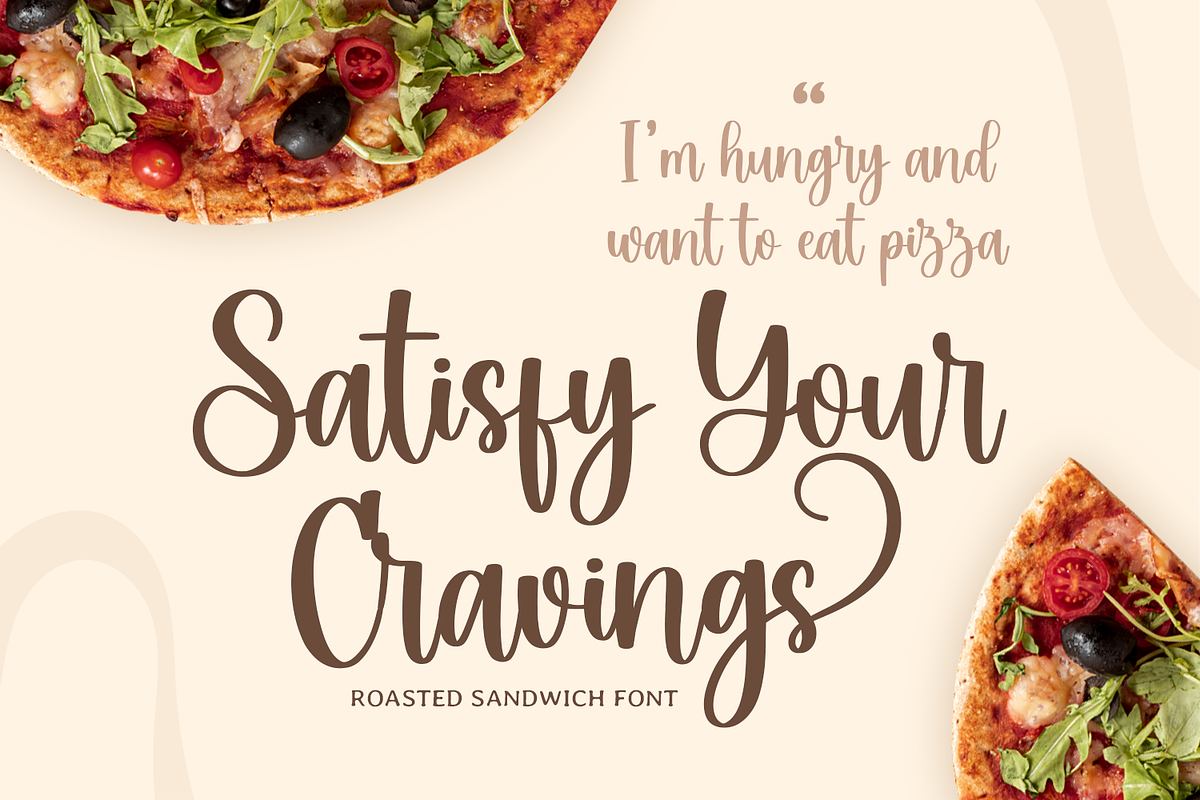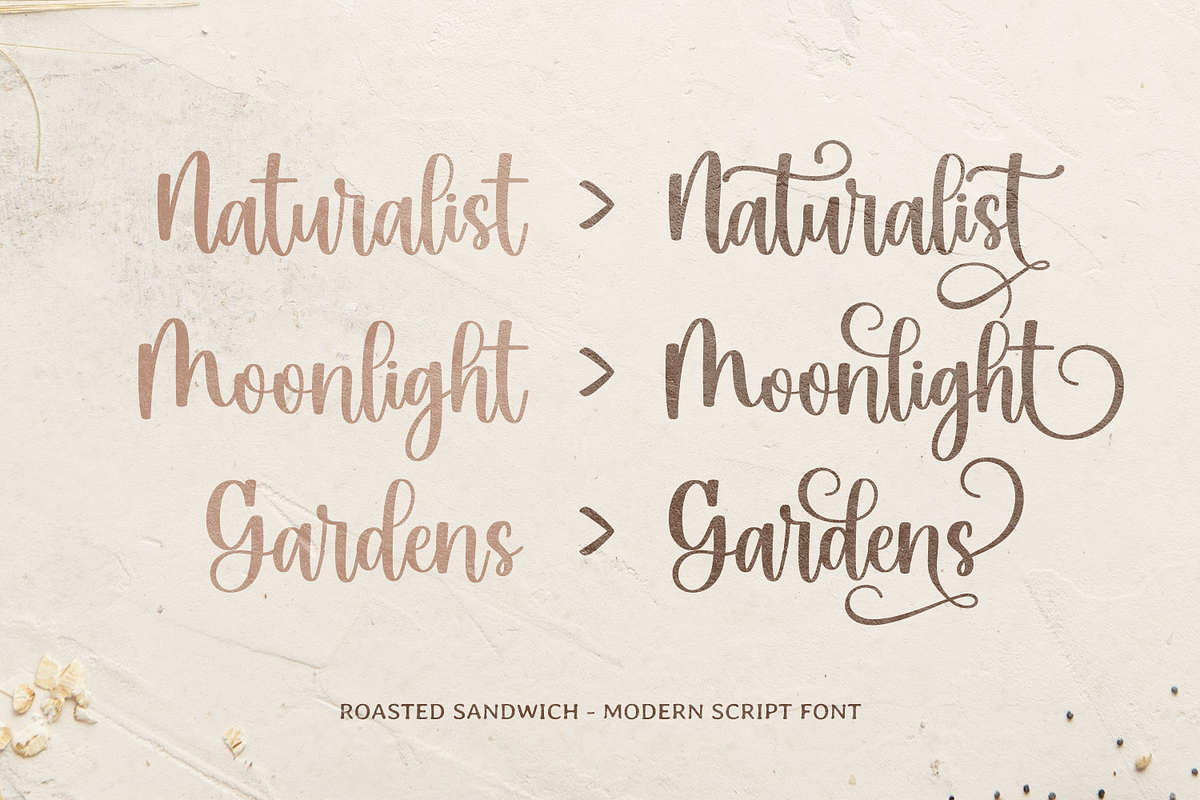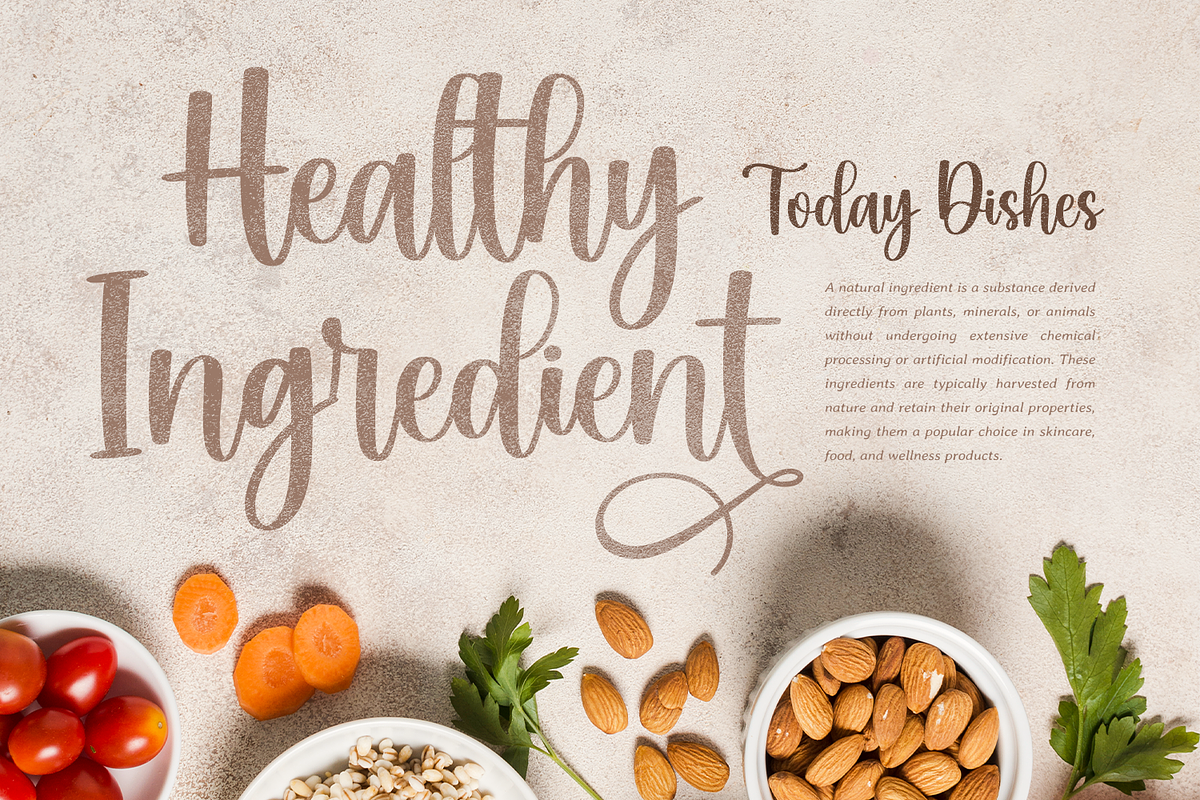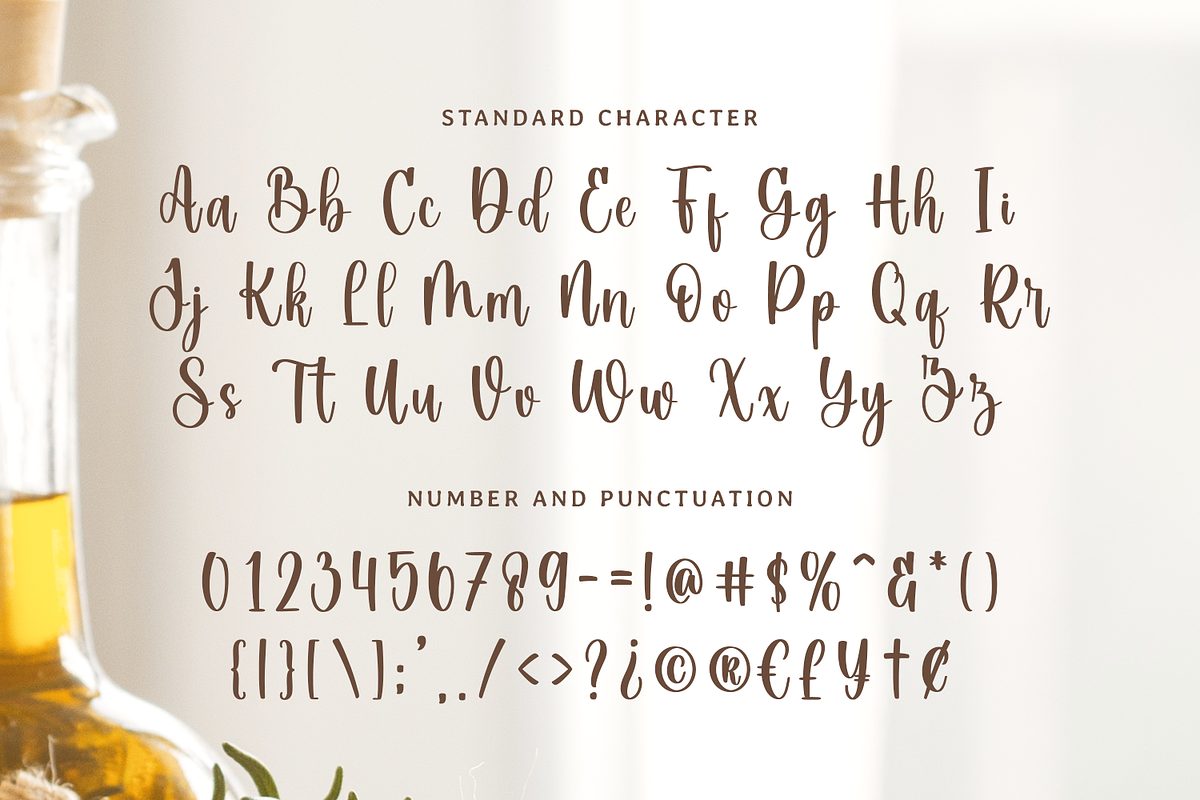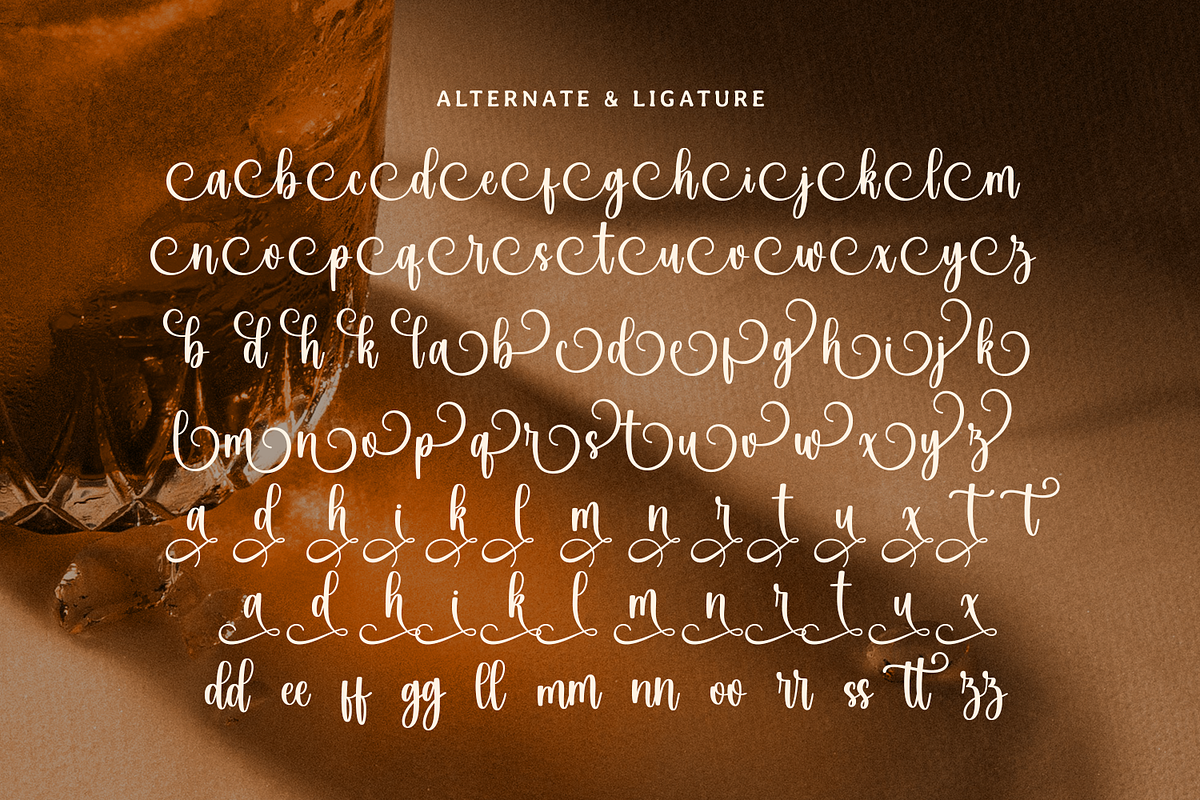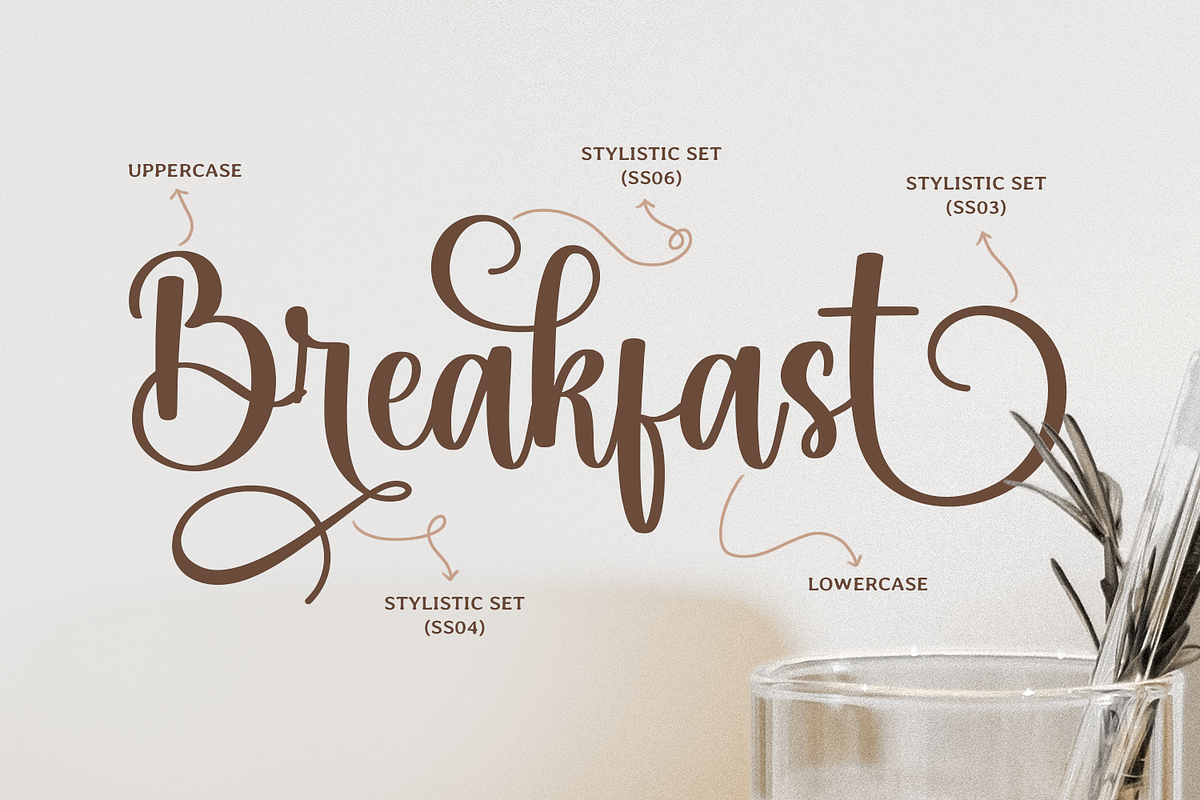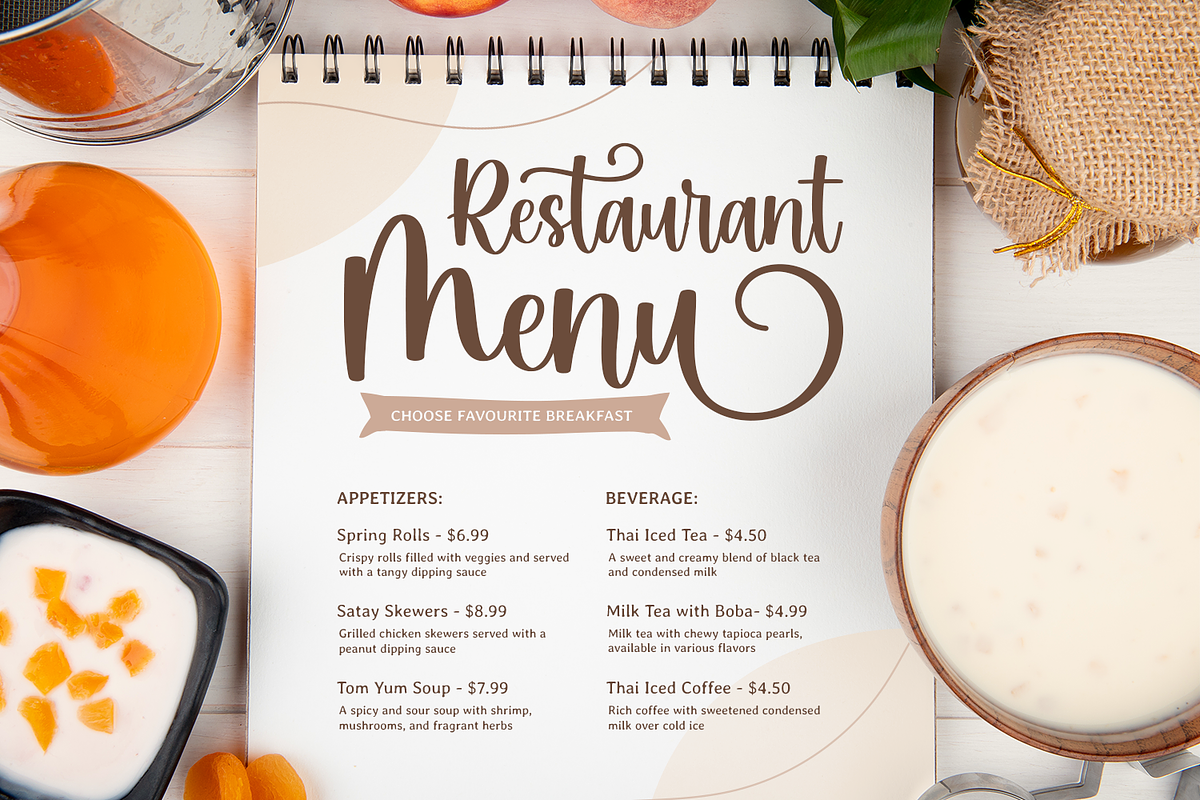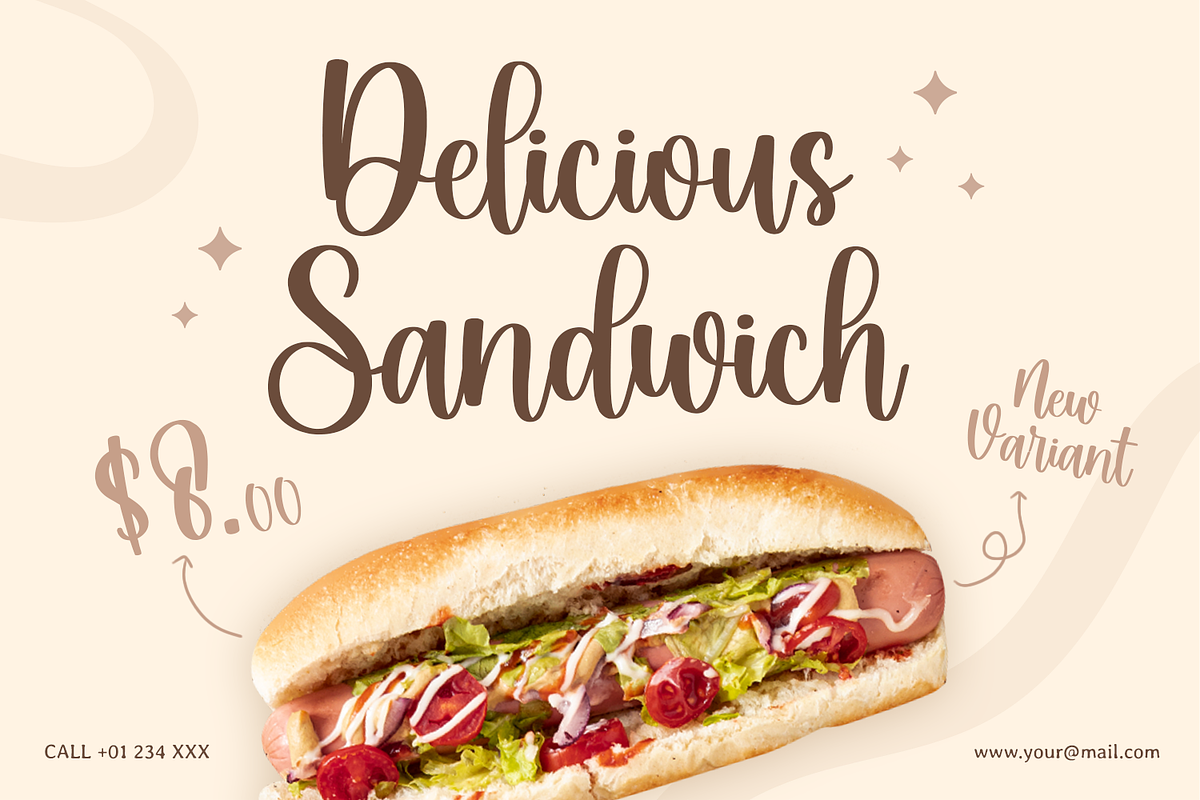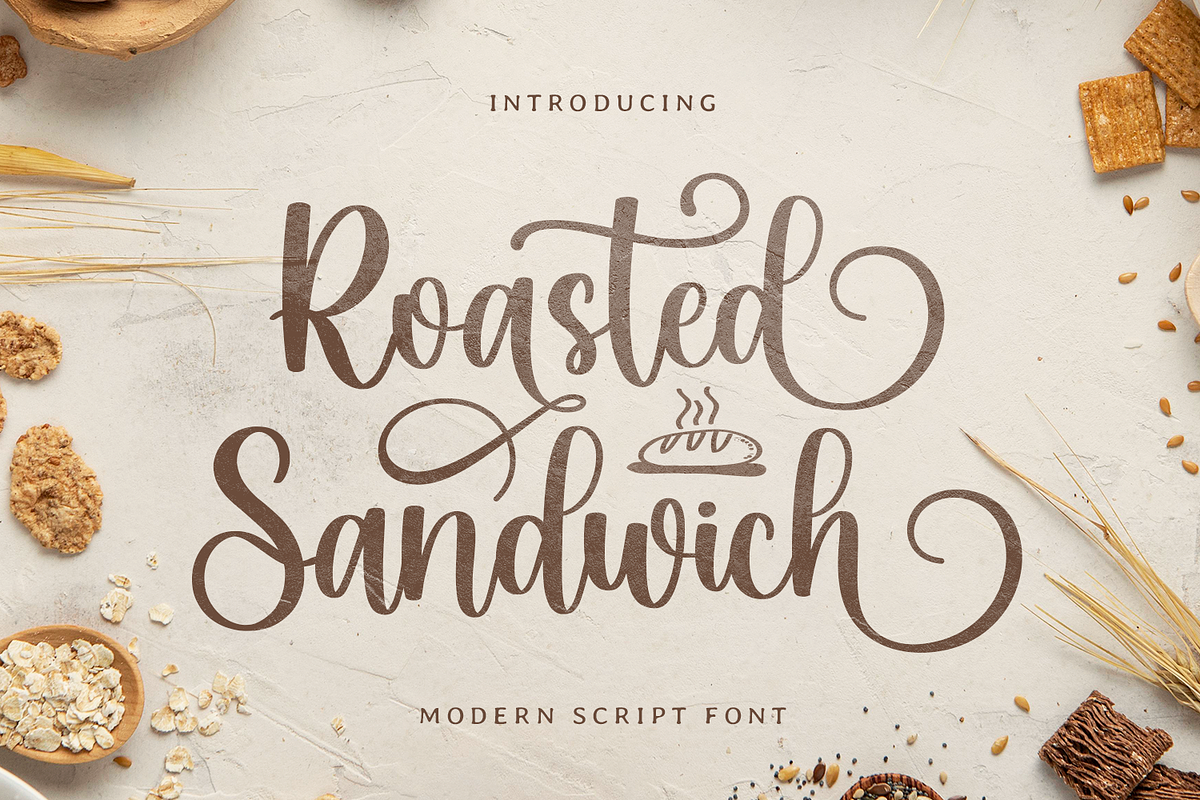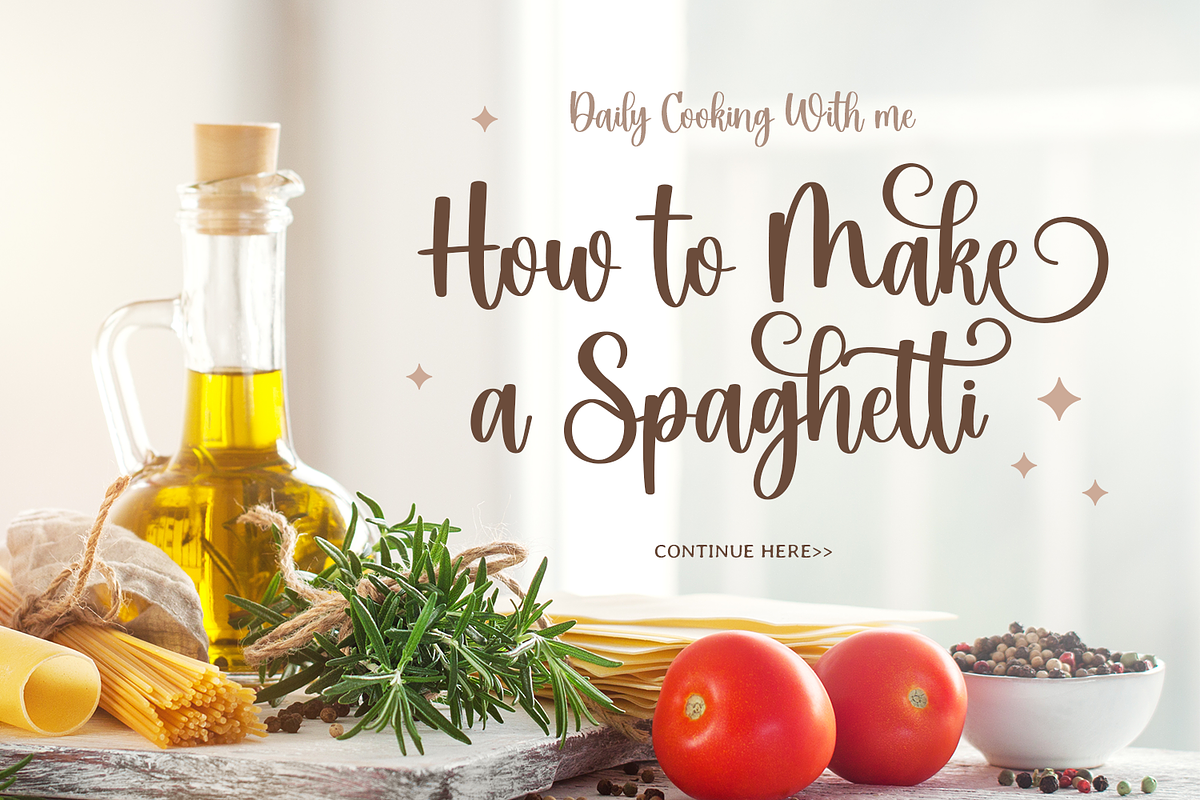
Roasted Sandwich
Roasted Sandwich is a charming script handwritten font that embodies elegance and warmth, perfect for making your designs truly unforgettable. With its graceful strokes and seamless flow, this font adds a personal touch to any project. The gentle curves and artistic flair make Roasted Sandwich ideal for themes related to weddings, birthdays, invitations, and seasonal celebrations.
Each character in Roasted Sandwich is thoughtfully designed with beginning and ending swash tails, adding a sophisticated and decorative element that elevates your text. This unique feature makes the font perfect for intricate projects like Cricut crafts, embroidery designs, and SVG creations, ensuring that your work stands out with elegance and precision.
Versatile and timeless, Roasted Sandwich is well-suited for events throughout the year, from spring and summer gatherings to autumn festivities and Christmas celebrations. Its stylish script is perfect for a variety of uses, including greeting cards, holiday banners, thank you notes, and more, capturing the essence of joy and warmth for every season.
Add a touch of sophistication to your projects with Roasted Sandwich. Let your creativity shine by using this font for your next craft, invitation, or personalized gift. Try Roasted Sandwich today and see how it transforms your designs into cherished masterpieces!
- Alternate glyphs & Unique Ligature.